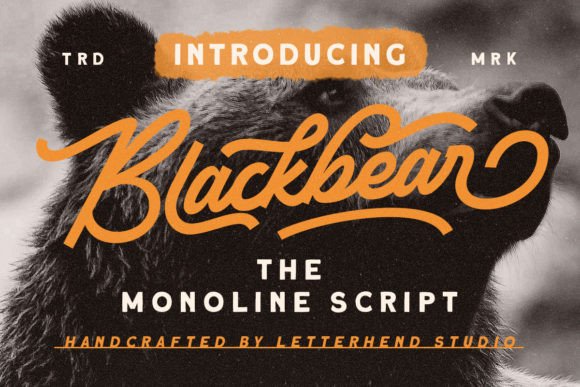
Introducing Blackbear Font: The Perfect Monoline Script Font for Your Design Projects
Are you a designer or crafter looking for a font that exudes elegance and sophistication? Look no further than Blackbear Font, a beautiful monoline script font that is sure to elevate your design projects to the next level. With its casual and classic appearance, Blackbear Font is the perfect choice for a variety of design ideas, from romantic wedding invitations to stylish branding and packaging.
What is Blackbear Font?
Blackbear Font is a monoline script font that features smooth, flowing lines and a gentle, cursive style. Its classic appearance makes it an excellent choice for designers who want to add a touch of sophistication and elegance to their projects. Whether you’re creating a logo, invitation, or social media graphic, Blackbear Font is sure to make a lasting impression.
Key Features of Blackbear Font
- Casual and Classic Appearance: Blackbear Font has a relaxed, casual vibe that makes it perfect for a wide range of design projects.
- Monoline Script Style: The font features smooth, flowing lines that give it a elegant and sophisticated look.
- Romantic and Stylish: Blackbear Font adds a touch of romance and style to any design project, making it perfect for wedding invitations, Valentine’s Day cards, and other special occasions.
- Versatile: The font can be used for a variety of design projects, from logos and branding to social media graphics and packaging.
How to Use Blackbear Font in Your Design Projects
Blackbear Font is incredibly easy to use and can be incorporated into a wide range of design projects. Here are a few ideas to get you started:
- Wedding Invitations: Use Blackbear Font to create beautiful, romantic wedding invitations that set the tone for the big day.
- Branding and Packaging: Add a touch of elegance and sophistication to your brand with Blackbear Font, perfect for luxury packaging and branding projects.
- Social Media Graphics: Use Blackbear Font to create eye-catching social media graphics that are sure to grab attention.
- Logos and Icons: Create a lasting impression with Blackbear Font, perfect for logos and icons that need to convey a sense of style and sophistication.
Why Choose Blackbear Font?
With so many fonts to choose from, why should you choose Blackbear Font? Here are just a few reasons:
- Unique and Elegant: Blackbear Font has a unique and elegant style that sets it apart from other fonts.
- High-Quality Design: The font is designed with high-quality craftsmanship, ensuring that it looks great in any design project.
- Easy to Read: Blackbear Font is easy to read, making it perfect for body text and headlines.
Blackbear Font is a beautiful monoline script font that is sure to elevate your design projects to the next level. With its casual and classic appearance, Blackbear Font is perfect for a wide range of design ideas, from romantic wedding invitations to stylish branding and packaging. Whether you’re a designer or crafter, Blackbear Font is a must-have font that will add a touch of elegance and sophistication to any project.